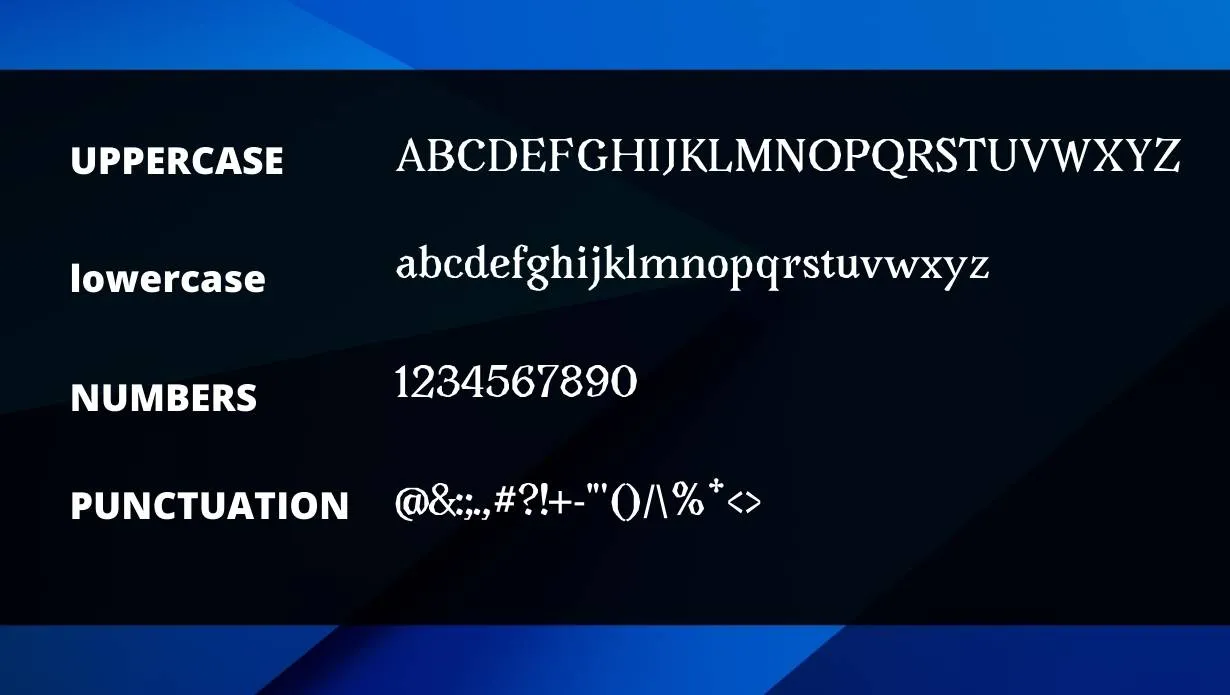
Avara Font is a serif typeface that was designed by George Lucas in 1977. The font is named after the village of Avarayr in Armenia, where an early battle in the Armenian genocide took place.
Avara Font Info
| Name | Avara Font |
| Designer | George Lucas |
| Style | Serif |
View of Avara Font